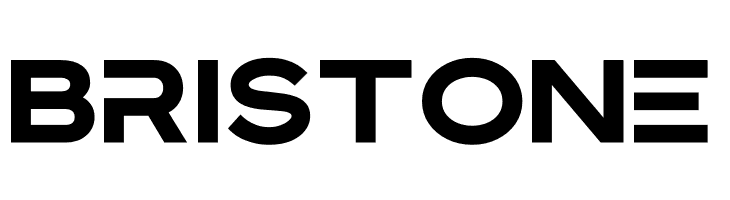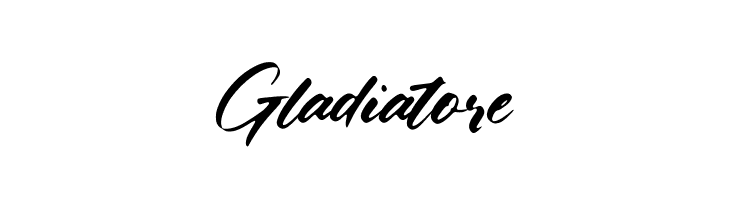
Bold, geometric sans-serif font with a modern aesthetic.
A bold, italicized 3D font with a futuristic and dynamic style.
Bold uppercase letters in a decorative square border with a vintage geometric style.
A playful, casual handwritten font with irregular strokes and a dynamic feel.
An elegant script font with flowing cursive style and decorative swashes.
A bold, geometric font with a modern and impactful style.
A bold, expressive script font with a hand-drawn, artistic style.
A sketch-like, hand-drawn font with a playful and artistic style.
A dynamic, handwritten font with fluid, energetic strokes and a lively appearance.
A bold, distressed font with a vintage, hand-crafted appearance.